When letters dance with elegance, you’ll see script fonts. For brands seeking to whisper refinement, script fonts are like a visual symphony, curling and sweeping with an effortless grace that speaks volumes. We collect the best script fonts to transform your branding look into an exquisite one.
Our Best Script Fonts to Evoke Elegance in Your Brand
Selecting the best one for your branding is also about creating a memorable and striking visual. So, want to know what is the best script font for you? Following are the choices to make a lasting impression with different personalities. Let’s take a look!
1. Fisterya
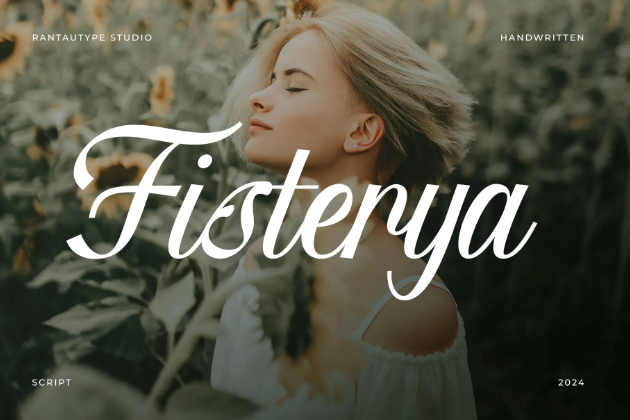
Fisterya is an elegant script that emphasizes natural beauty. Its ribbon-like typeface allows the font to flow gracefully. This font prioritizes elegance and readability over ornaments.
2. Bristega
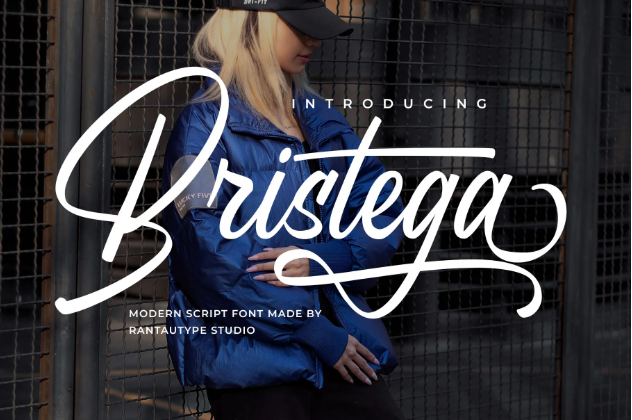
Among our luxurious script fonts, Bristega has a daring and confident vibe. The font has a consistent thickness, long, sure stem strokes, flowy tails, and artsy letterforms.
3. Bindacy
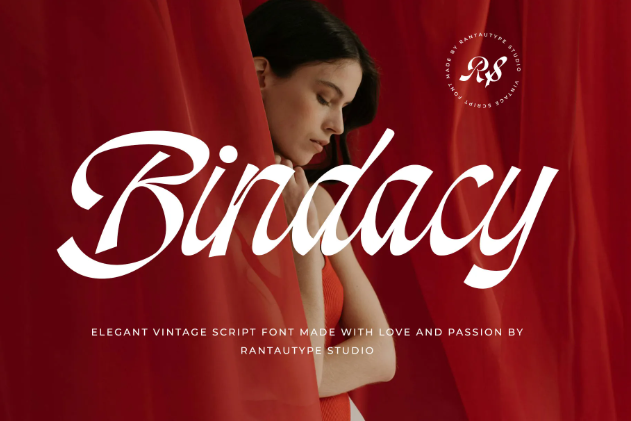
Bindacy is a vintage-inspired script font that balances elegance with readability. While maintaining a stylish cursive appearance overall, some letters intentionally break from the script style to enhance legibility.
4. Radelna
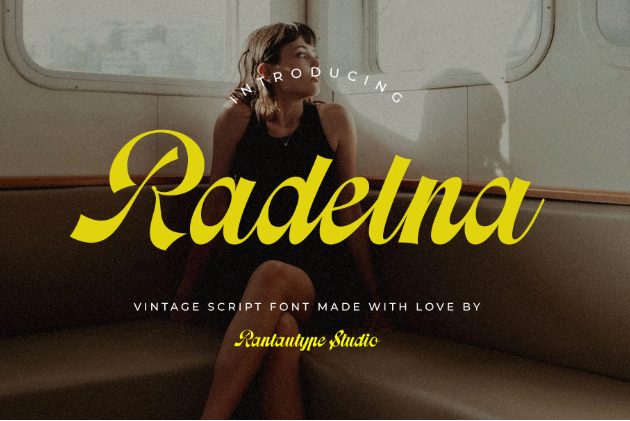
The vintage script font Radelna has a more flaring on its letters. The font displays a significant contrast between the thick and thin strokes, creating an artisan kind of look.
5. Herdina
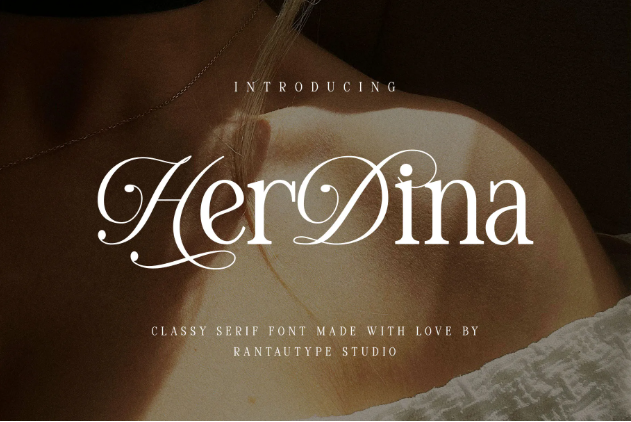
Herdina can create a rare look on your brand. This font is essentially a serif font but with a touch of script. This font combines these two styles seamlessly, creating an elegant and eye-catching visual.
6. Reladin
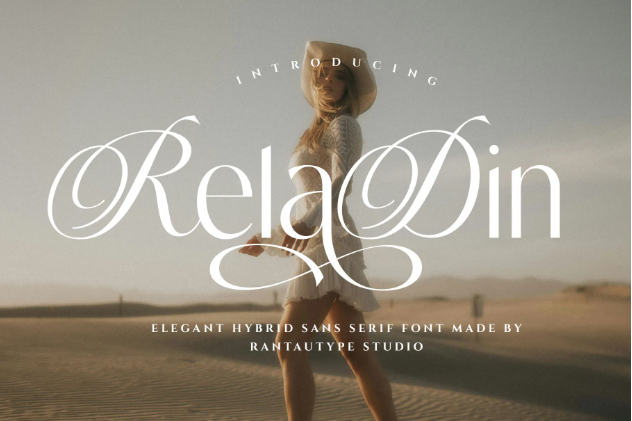
Another hybrid font on our list is Reladin. This one combines sans serif font with script aesthetics. The font displays some script elements in its uppercase letters and swashes.
7. Palmaris
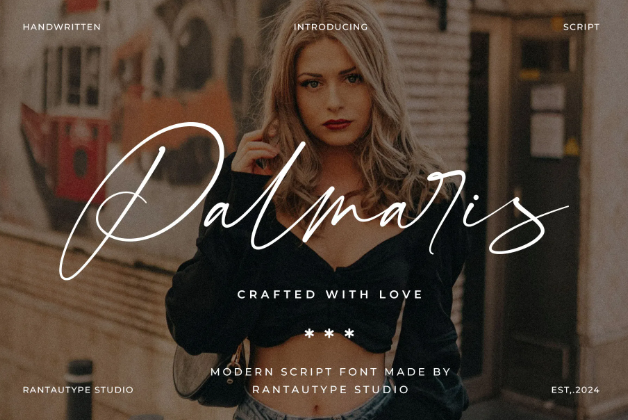
Palmaris exudes elegance using its petite stature and graceful strokes. Its modern appearance creates a clean, finished, and minimalist look.
8. Brilona
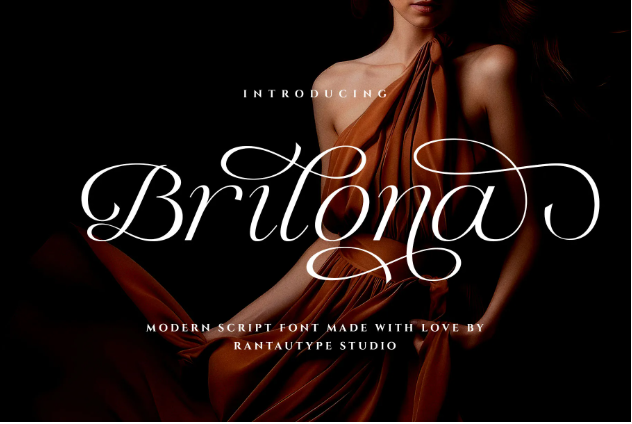
Among our best script fonts, Brilona highlights a brilliant detail. The font has all the script font characteristics, although didn’t connect the letters. This detail makes each letter can freely project its charm.
9. Morneta
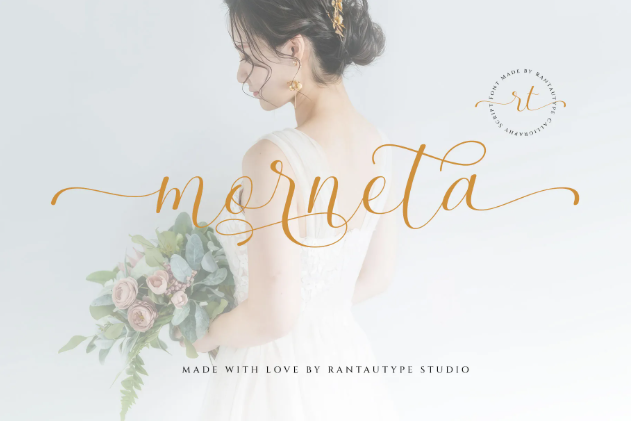
When beauty is the main character, Morneta can perfectly capture that. This font has a thick feminine, clean, and peaceful appearance, yet Morneta also displays intricate swashes.
10. Haimonty
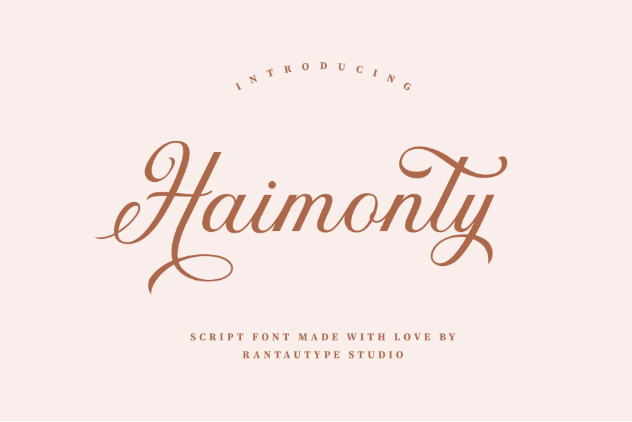
Haimonty is the chic and bubbly script font for your youthful branding. The font teeters the calligraphic lettering with its swashful, attractive letterforms.
11. Jullieta
Jullieta’s charm lies in its quick and graceful motion, resulting in a signature script typeface. Its strokes are natural, even showing unintentional strokes.
12. Raphiola
If you need a lilting font, here’s Raphiola. The font is made with casual modern aesthetics, a fitting recipe for today’s branding standard.
13. Margista
A monoline script like Margista can offer a more balanced weight to your brand. The font has the same width throughout, so it can freely without disturbing its visual beauty.
14. Delphia Village
With the wild strokes from Delphia Village, your brand can achieve a unique silhouette. Its loud and expressive strokes make its appearance classily luxurious.
15. Molfetta
The beauty of Molfetta lies in its thin strokes and generous use of space. With its upright appearance and wider kerning, your brand can look more professional yet welcoming.
16. Luxios
With the whimsical look of Luxios, you can immediately achieve a luxurious look. The font focuses on creating a memorable brand shape with its wide and wild swashful letters.
17. Femeanly
Femeanly genuinely looked like a handwritten typeface. It has both a natural and luxurious look, a perfect combination to make a logo with.
18. Holdington
For luxurious and masculine branding, we’ve got you Holdington. This font mimics the genuine handwritten style, combining both cursive and non-cursive letterforms.
19. Bright Hoston
With Bright Hoston, you can create a wilder and more carefree typography. This font combines strong angular strokes with flowy, circular flair.
20. Sullistia